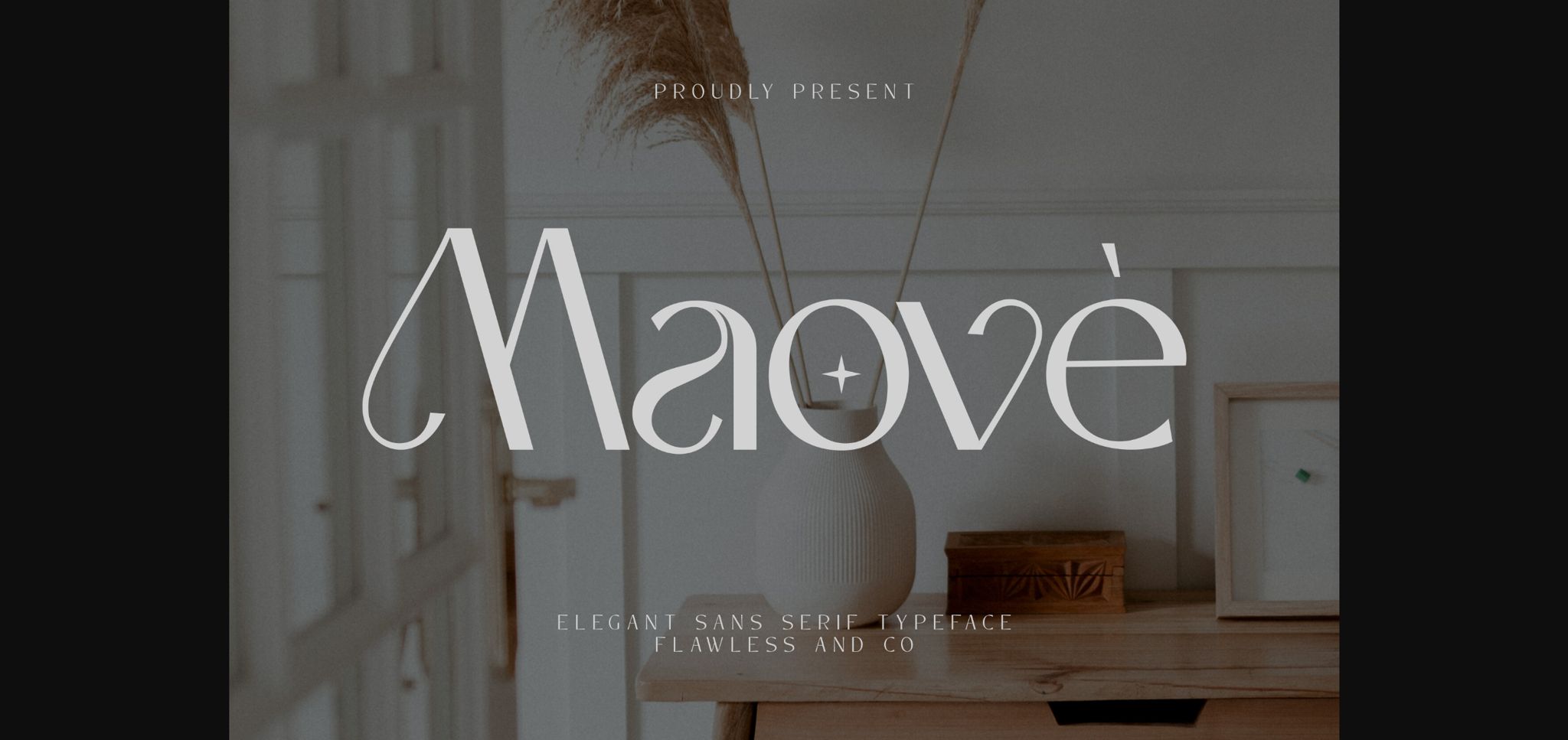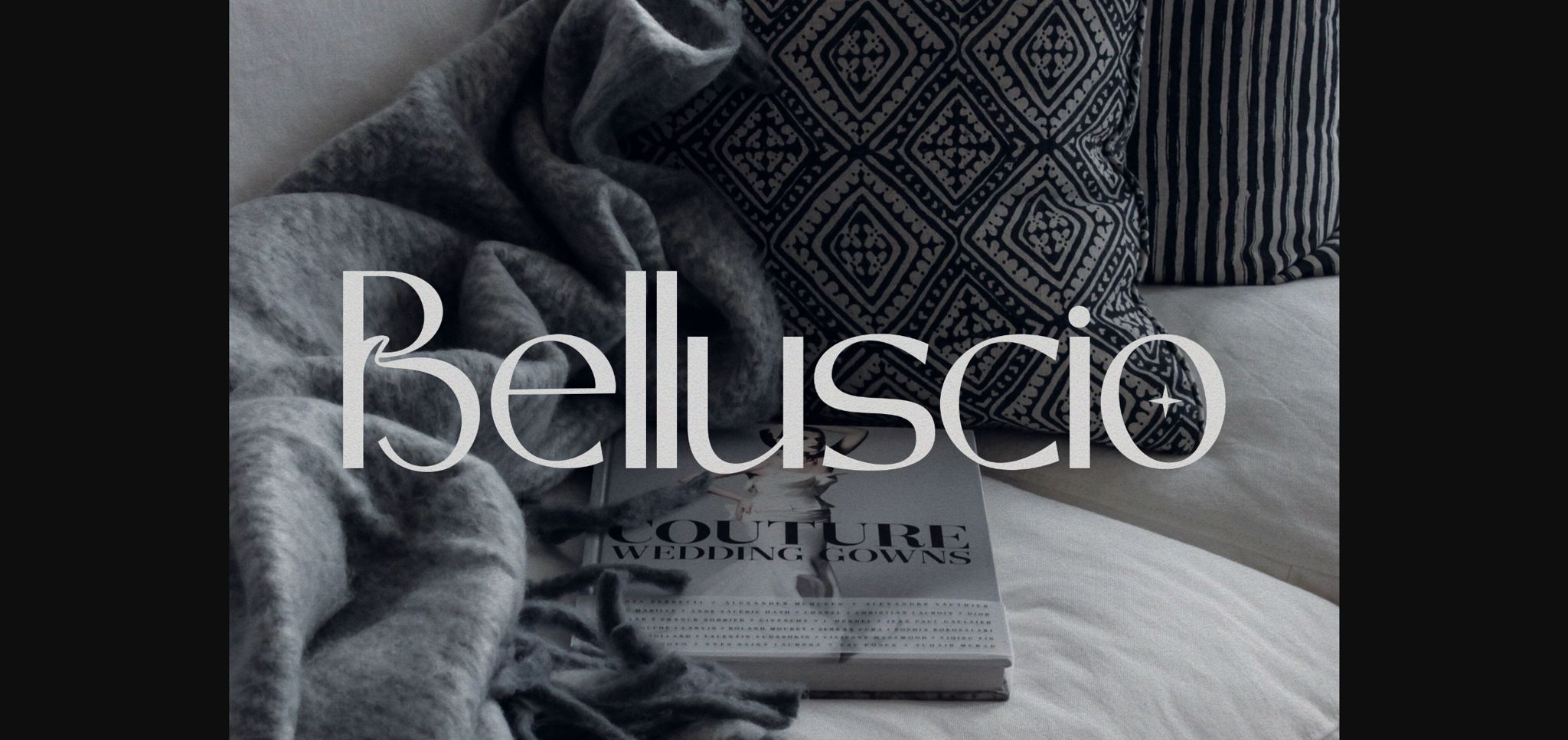
About Maove Font
Introducing “Maove” – Modern Elegant Sans Serif Font. Experience the epitome of modern elegance with “Maove” a sophisticated sans serif font that combines contemporary style with a wealth of alternative characters and ligatures to enhance your creative versatility. With its clean lines, refined character, and attention to detail, “Maove” is designed to convey timeless grace and style.